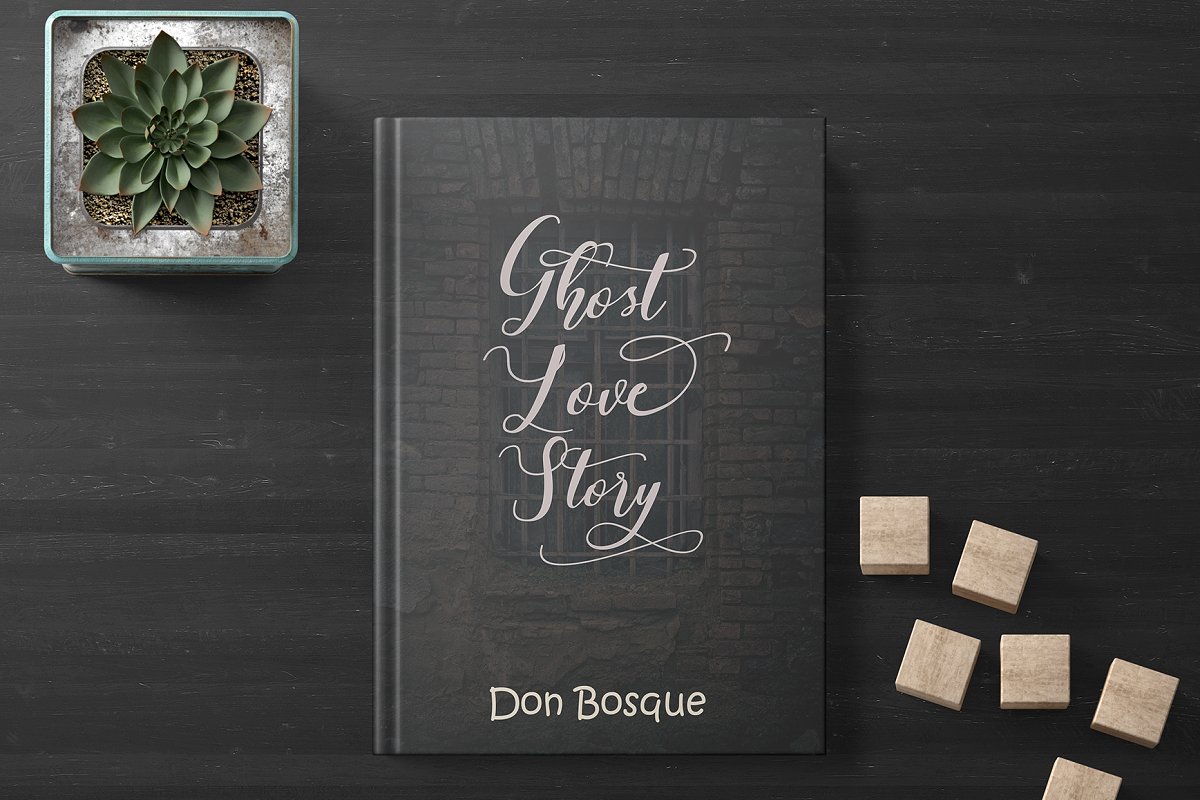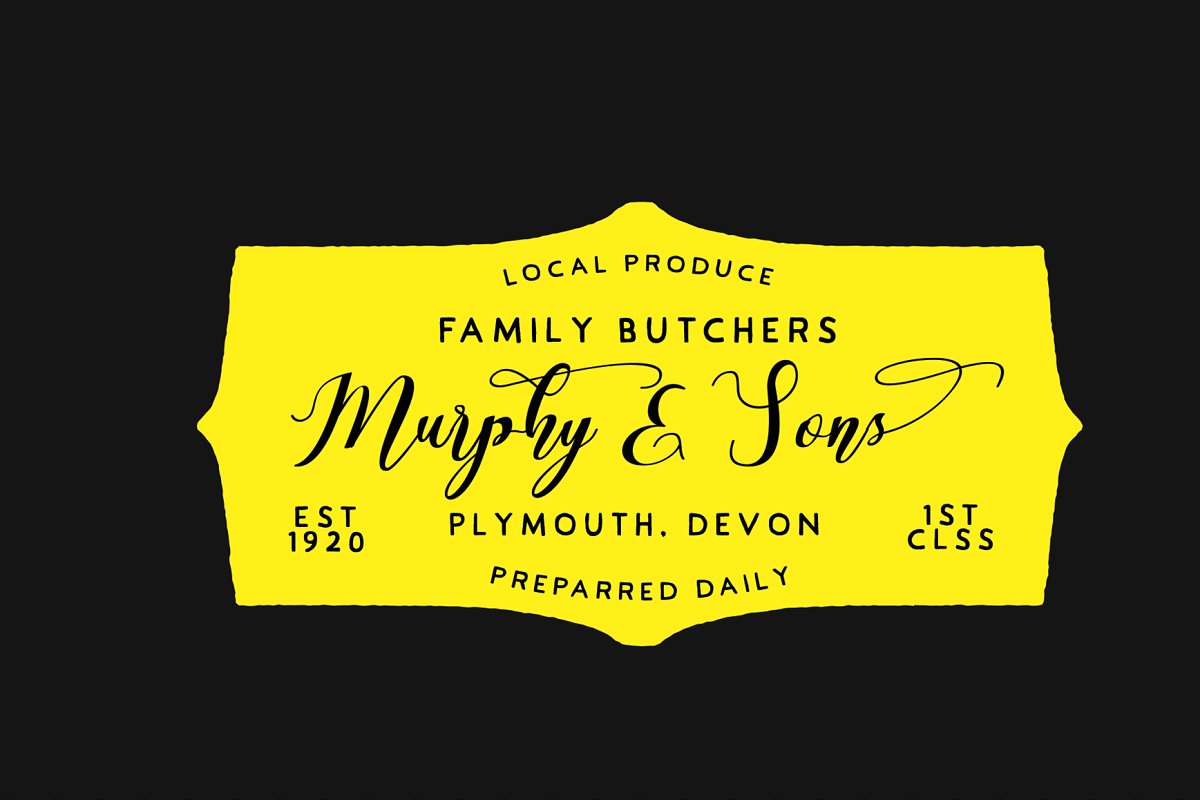
Arlenda Botteyk Font
Arlenda Botteyk Font – Modern Brush Calligraphy , from Letterena, is a Luxury Script font, suitable for any projects such as: logos, branding projects, homeware designs, product packaging, mugs, quotes, posters, shopping bags, t-shirts, book covers, name card, invitation cards, greeting cards, label, photography, watermark, special events, and all your other luxury and beautiful projects that need a Luxury serif taste.